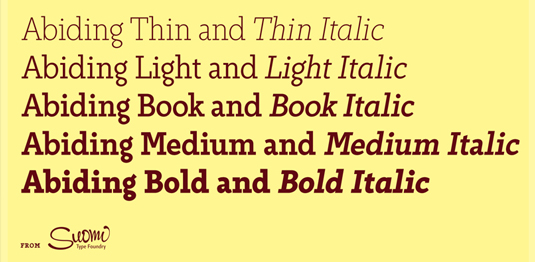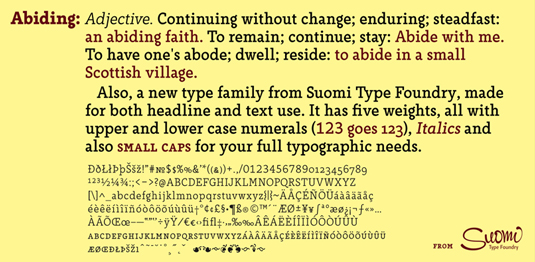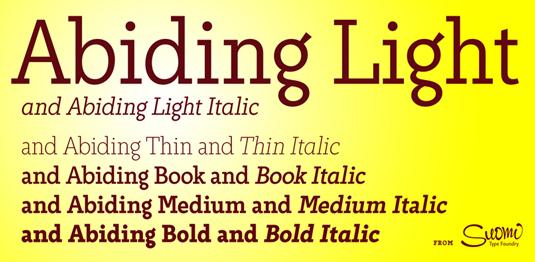
Font of the day: Abiding
Abiding from Suomi
Abiding is a slab serif font family from font foundry Suomi, consisting of five weights with old style numerals, small caps and extensive kerning, suitable for headline and text use.